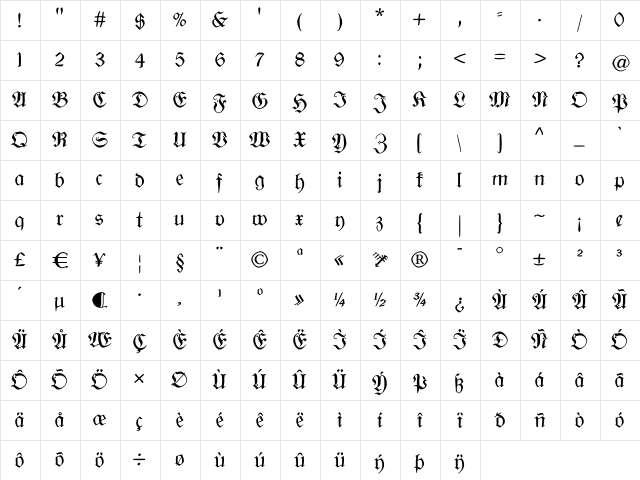
OldBerlin Regular
Design Context for OldBerlin Typeface
OldBerlin is a composed and adaptable typeface that performs quietly and consistently across a wide range of design contexts.